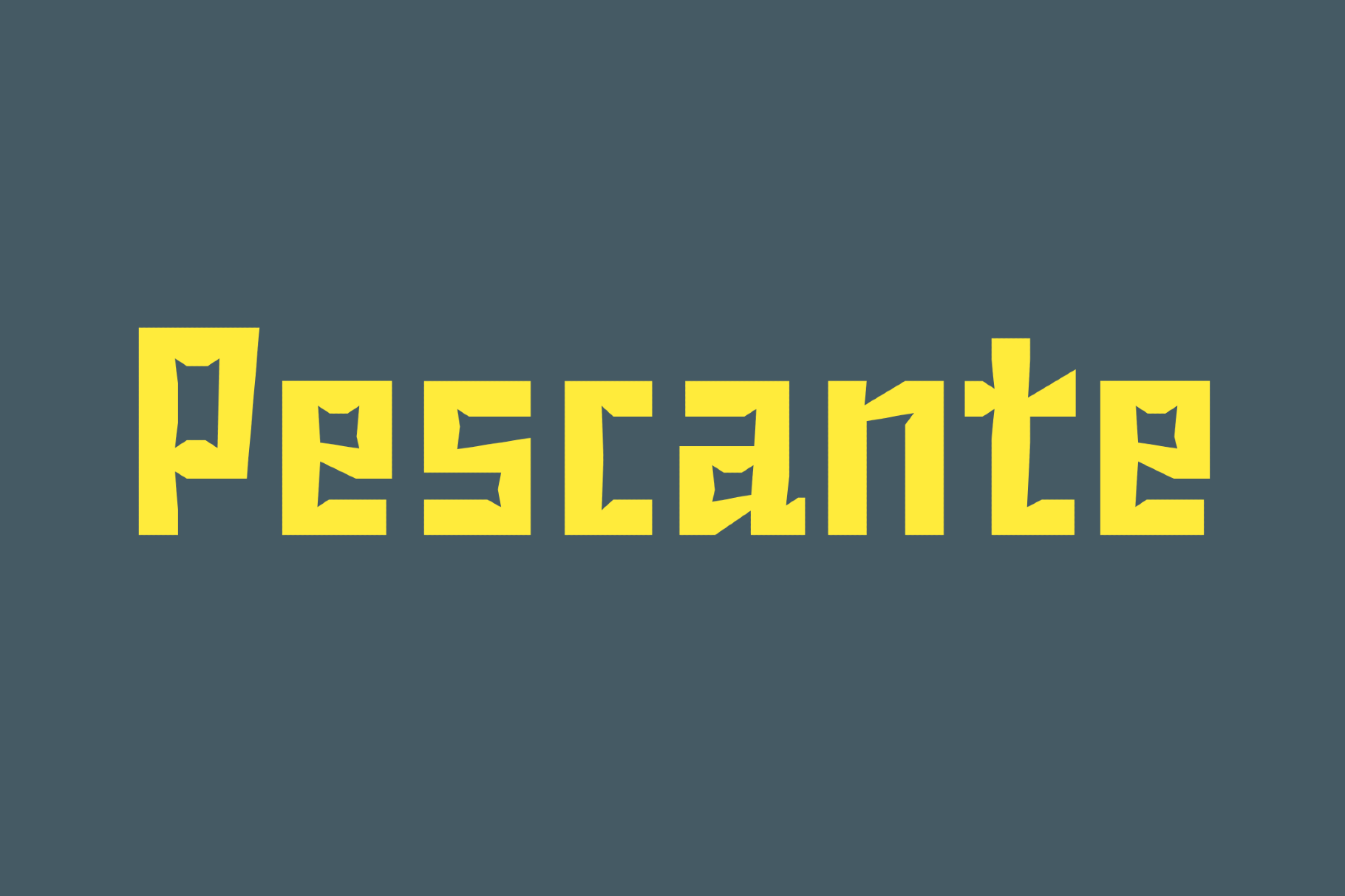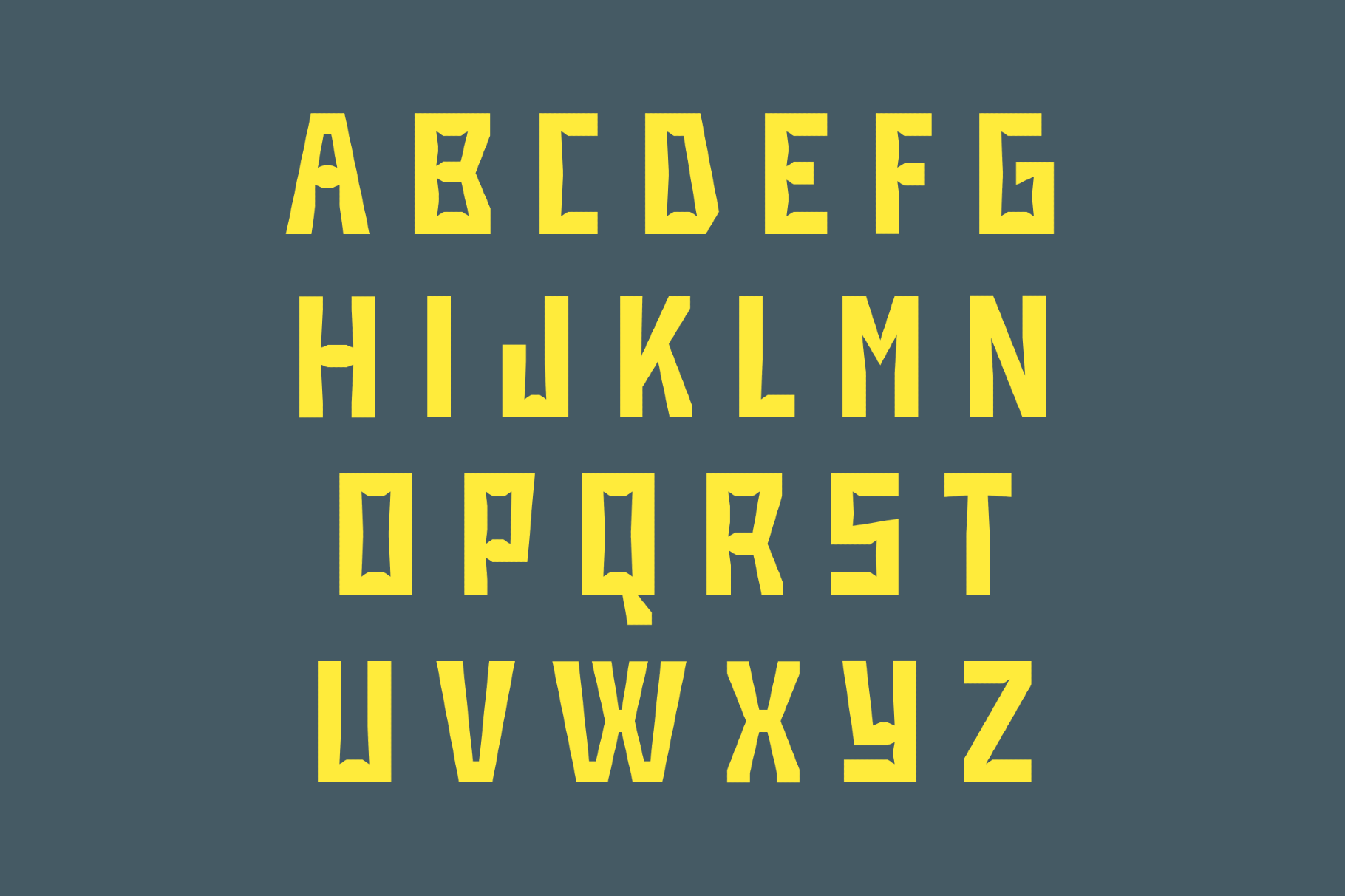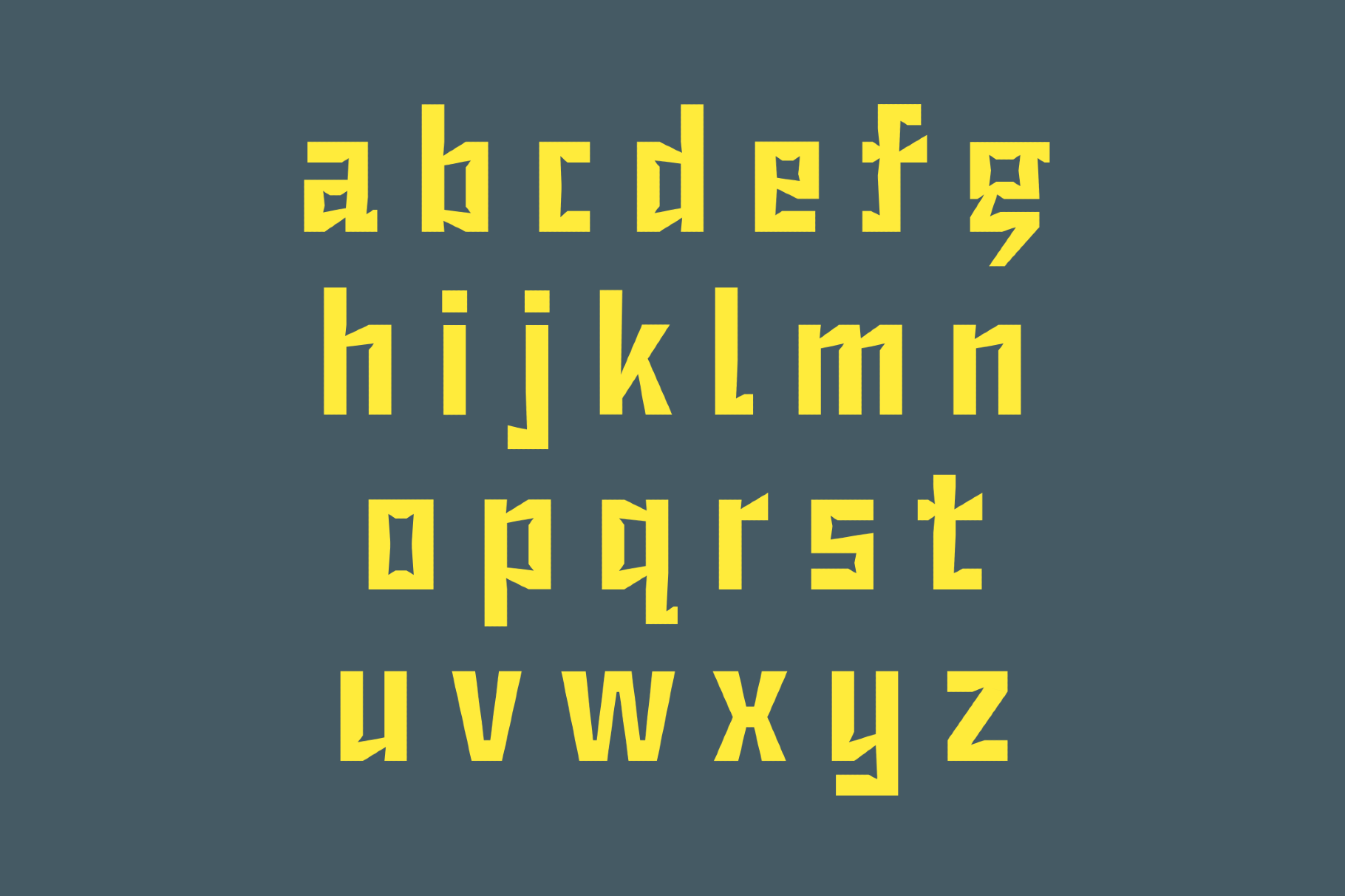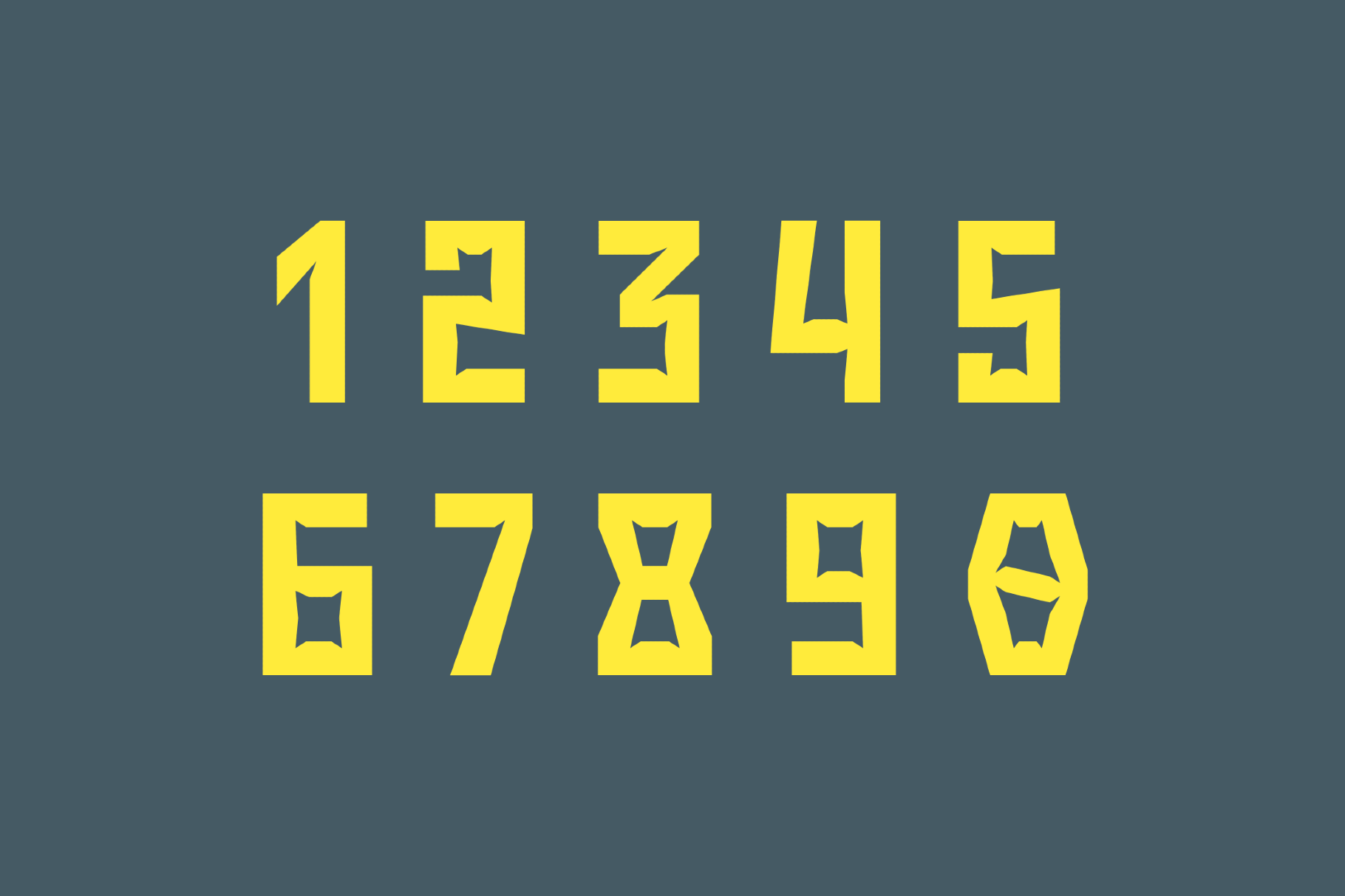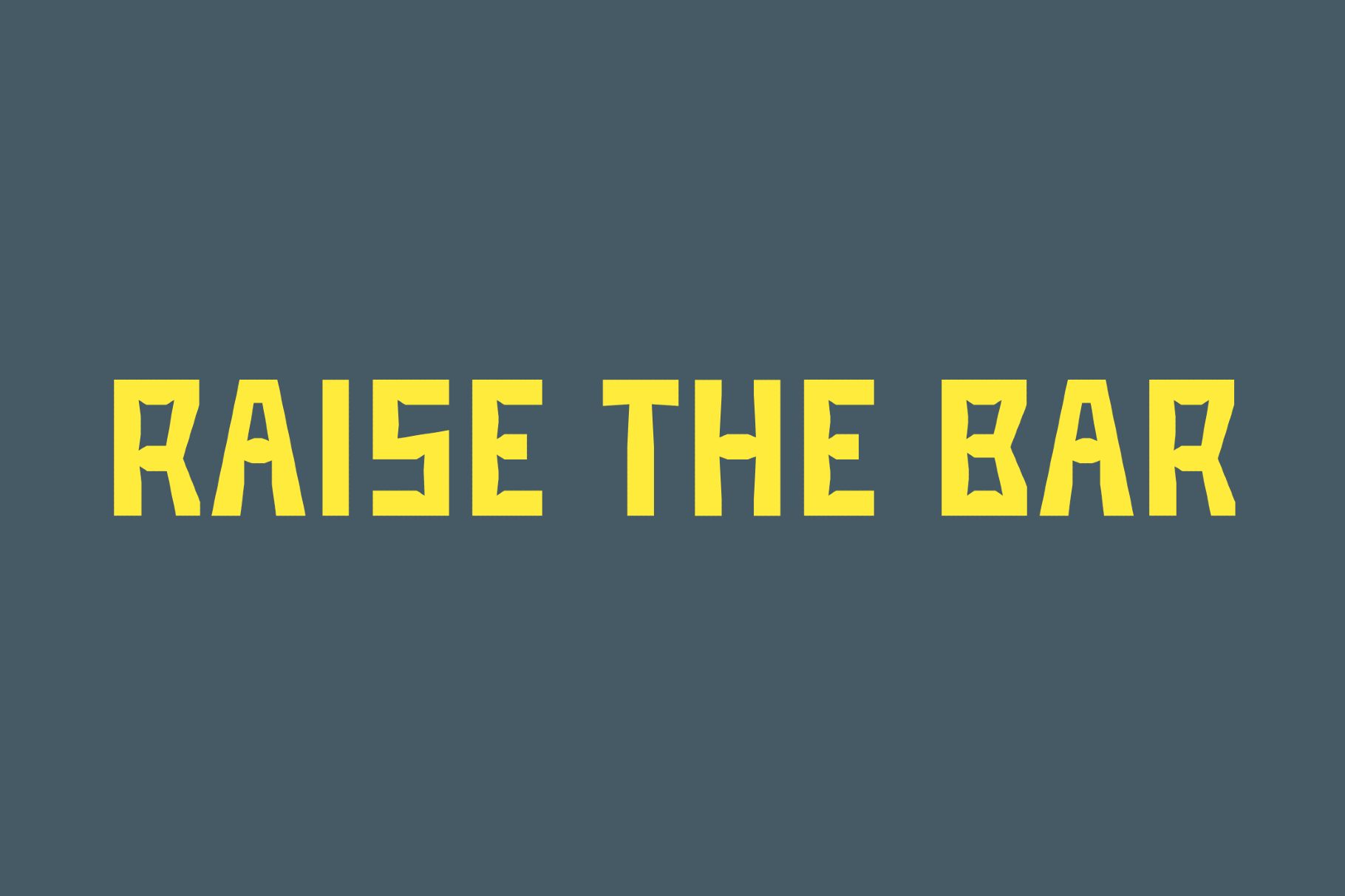
Pescante Block Font
Pescante is a blocky display font with the stern geometry of Constructivist titling and old factory signage. Its narrow counters and chiselled corners give it the flavor of linocut posters, railway markings and utilitarian print from the interwar years. It is useful for poster mastheads, album sleeves, packaging, sports graphics, editorial openers, merch and identity systems.